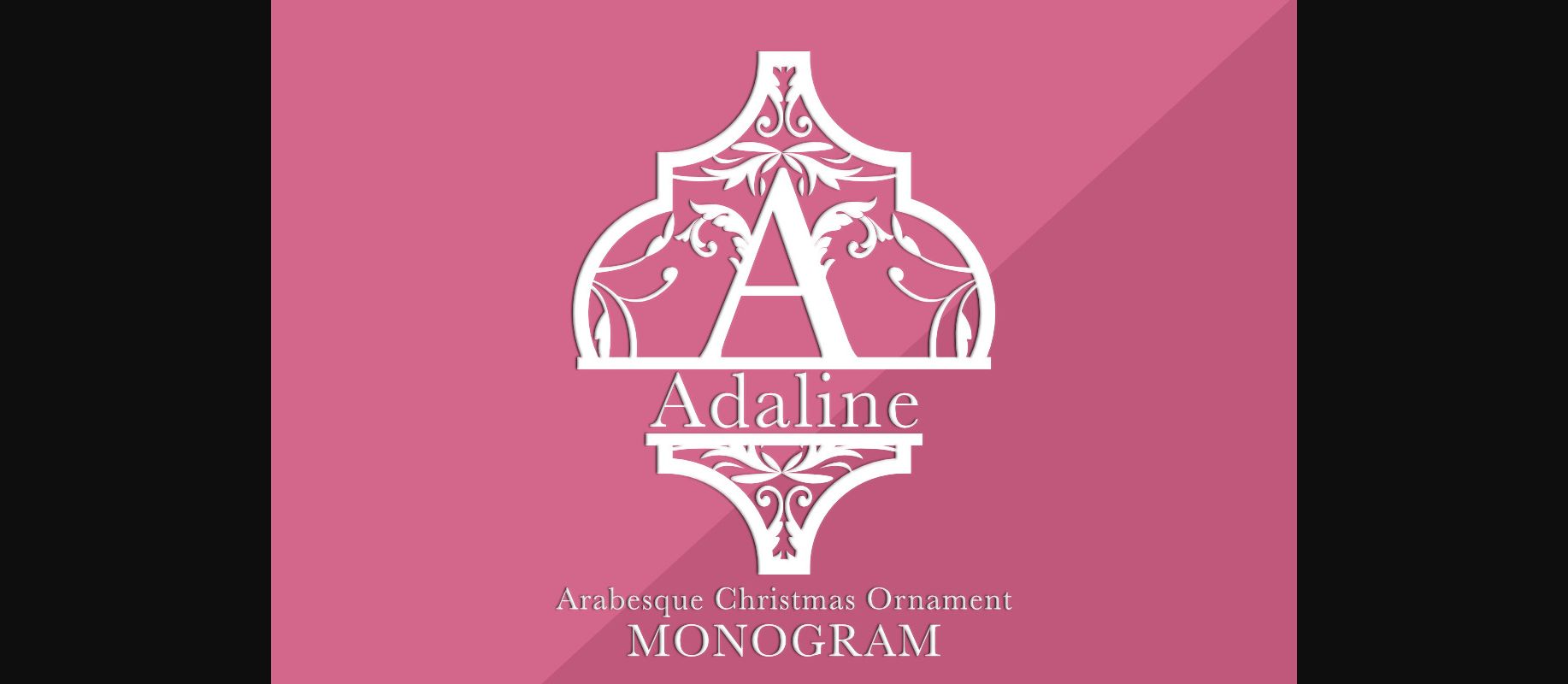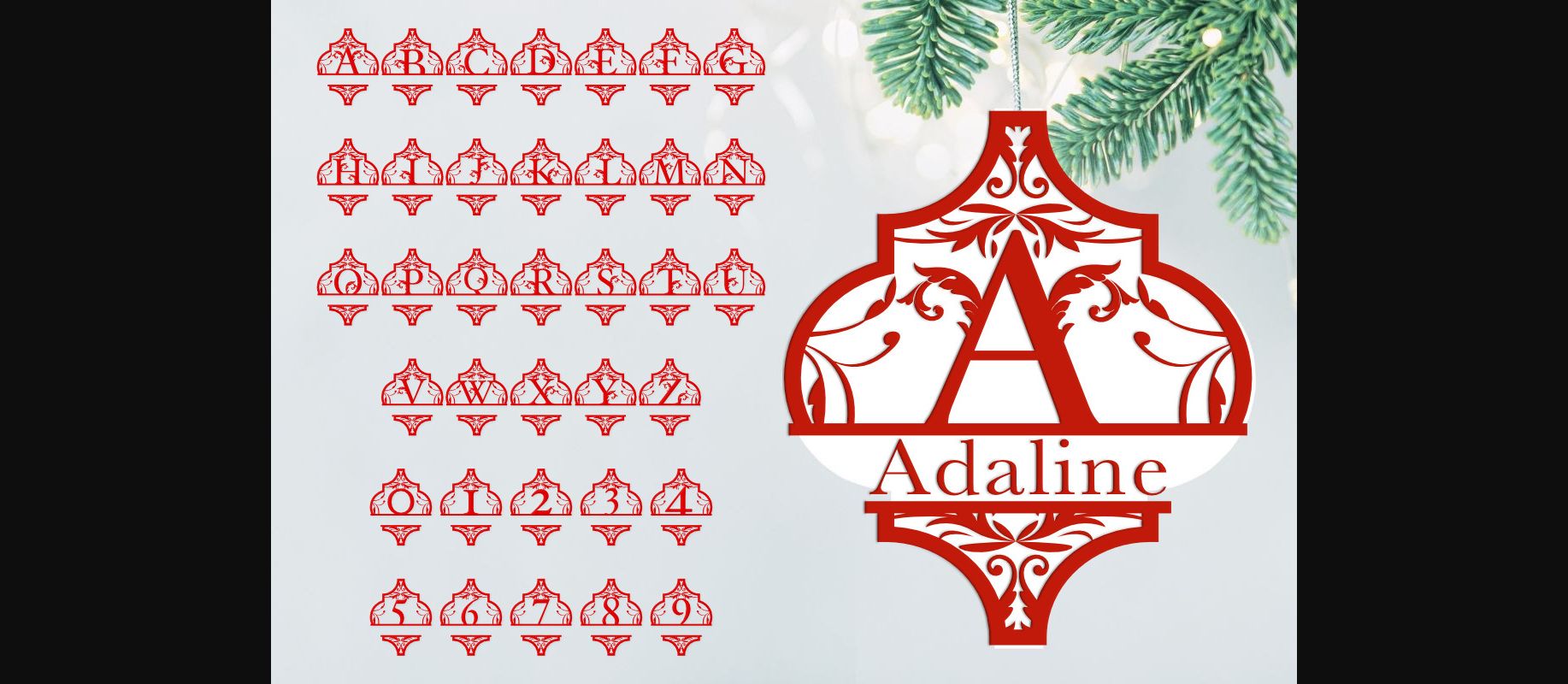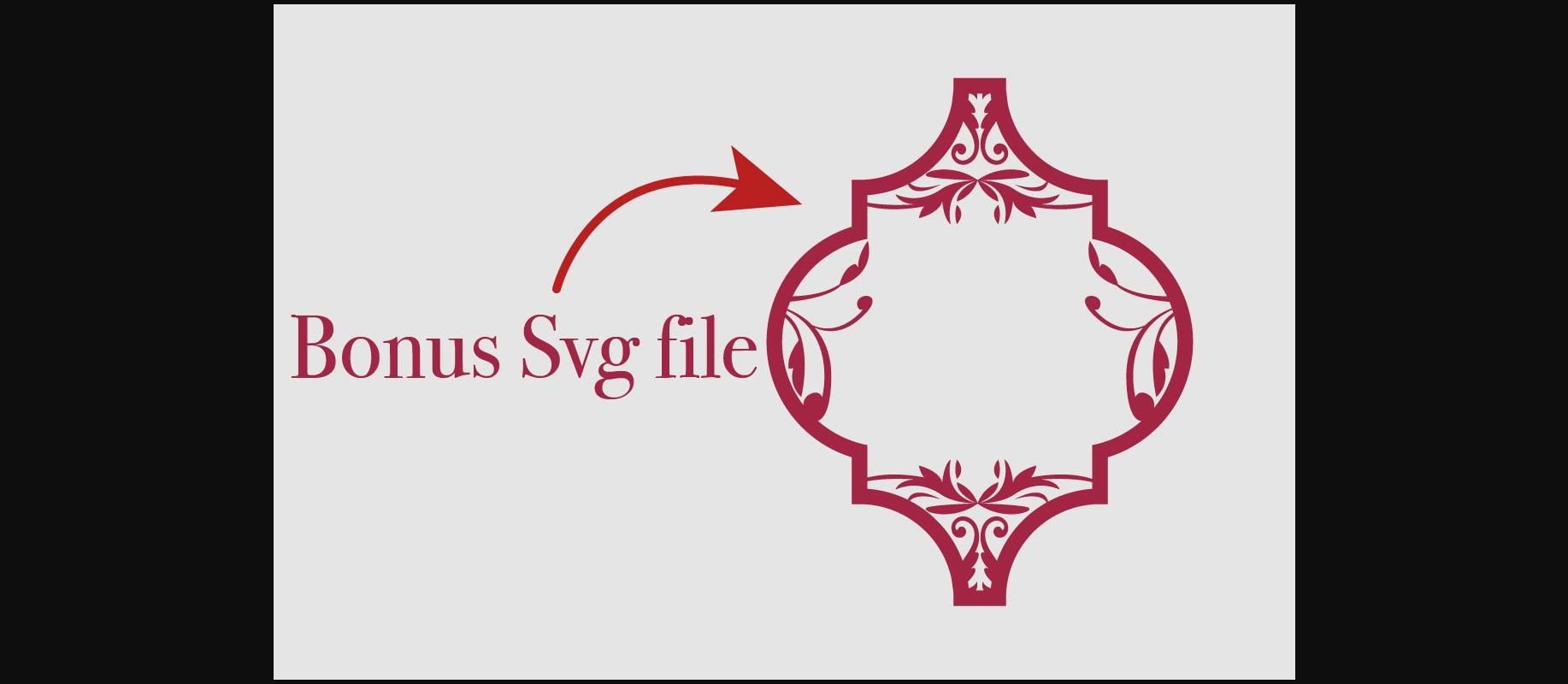
Adaline Arabesque Christmas Ornament Font
About Adaline Arabesque Christmas Ornament Font
Adaline Arabesque Christmas Ornament is an incredibly unique and interestingly designed decorative font. Whether you’re using it for crafting, digital designing, presentations or greeting cards making, it’s perfect!